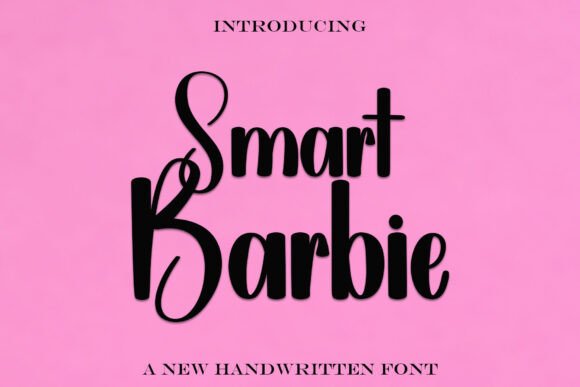
Introducing Smart Barbie Font: The Ultimate Holiday Typeface
The holiday season is upon us, and what better way to get into the festive spirit than with a font that embodies the magic of Christmas? Look no further than Smart Barbie Font, a decorative and merry typeface designed to add a touch of enchantment to your designs. In this article, we’ll dive into the world of Smart Barbie Font, exploring its features, uses, and benefits, as well as provide tips on how to make the most of this amazing font.
The Story Behind Smart Barbie Font
Smart Barbie Font is a carefully crafted typeface that captures the essence of the holiday season. Its whimsical flair and decorative elements evoke a sense of nostalgia and cheer, making it the perfect addition to your holiday-themed projects. Whether you’re designing greeting cards, gift tags, or festive posters, Smart Barbie Font is sure to bring a smile to your audience’s faces.
Key Features of Smart Barbie Font
- Decorative Elements: Smart Barbie Font boasts an array of decorative elements, including intricate swirls, holly leaves, and snowflakes, which add a touch of festive flair to your designs.
- Whimsical Flair: This font’s whimsical design makes it perfect for holiday-themed projects, such as Christmas cards, gift tags, and festive posters.
Uses for Smart Barbie Font
Smart Barbie Font is incredibly versatile, making it suitable for a wide range of projects, including:
- Greeting Cards: Add a touch of festive cheer to your holiday greeting cards with Smart Barbie Font.
- Gift Tags: Create personalized and festive gift tags with this beautiful font.
- Holiday Posters: Use Smart Barbie Font to create eye-catching holiday posters that are sure to grab attention.
- Social Media Graphics: Add a festive touch to your social media graphics, such as Facebook posts and Instagram stories.
Benefits of Using Smart Barbie Font
So, why choose Smart Barbie Font for your holiday projects? Here are just a few benefits:
- Unique and Festive Design: Smart Barbie Font’s unique design sets it apart from other fonts, ensuring that your projects stand out from the crowd.
- High-Quality Design: Smart Barbie Font is designed to the highest standards, ensuring that your projects look professional and polished.
Tips for Using Smart Barbie Font
To get the most out of Smart Barbie Font, here are a few tips:
- Experiment with Different Sizes: Play around with different font sizes to find the perfect balance for your project.
- Combine with Other Fonts: Pair Smart Barbie Font with other fonts to create a unique and eye-catching design.
- Use Decorative Elements: Take advantage of Smart Barbie Font’s decorative elements to add a touch of festive flair to your designs.
- What is Smart Barbie Font? Smart Barbie Font is a decorative and merry typeface designed to capture the spirit of the holiday season.